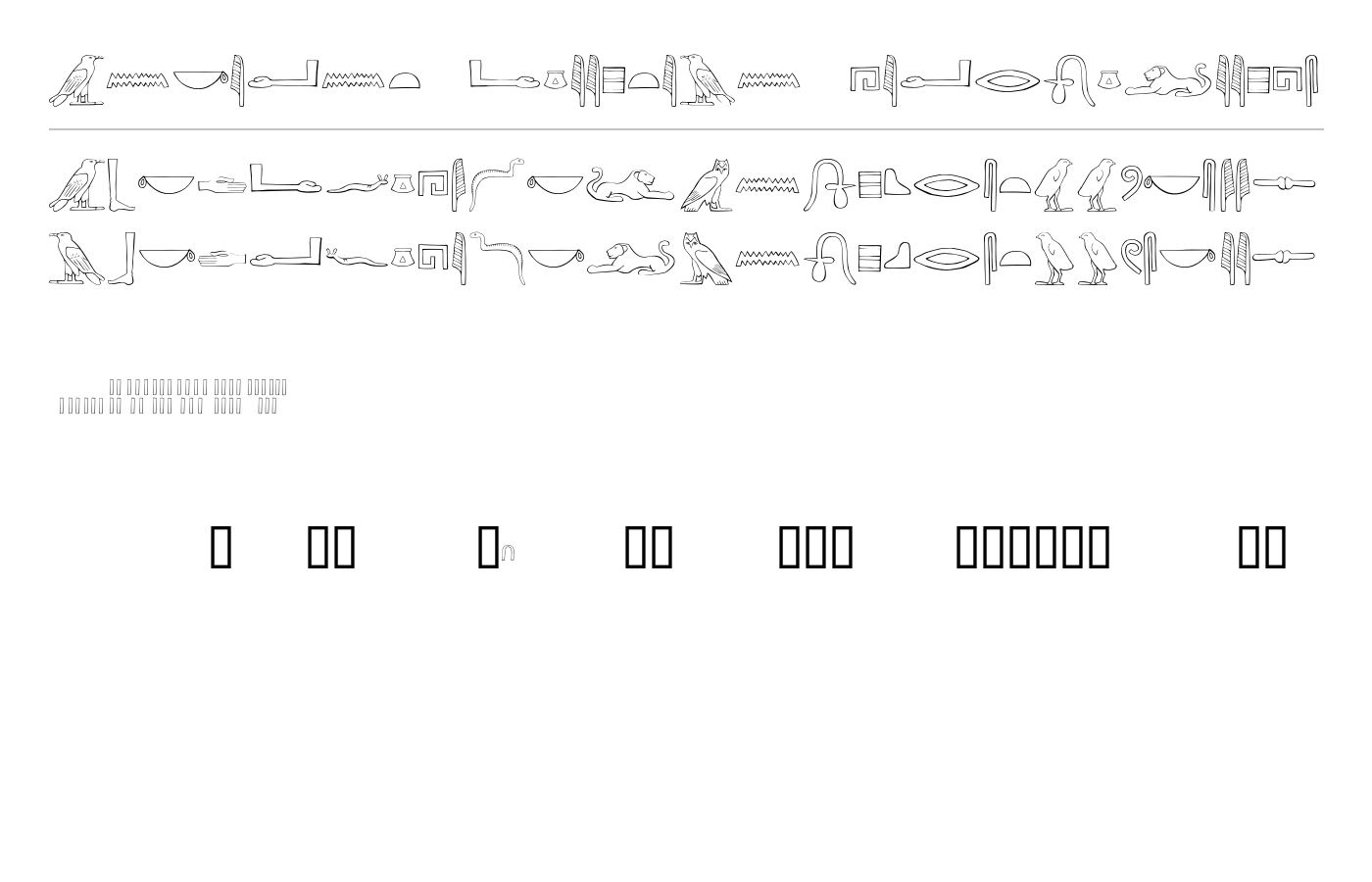
Ancient Egyptian Hieroglyphs Font is a decorative symbol font that faithfully replicates the look of traditional Egyptian hieroglyphic writing with detailed line art of iconic animals, objects, and symbols. Its thin, precise strokes and clear forms give it a historic and mysterious feel, making it perfect for projects seeking an authentic ancient or cultural vibe. This font is ideal for educational materials, themed graphics, museum exhibits, and decorative uses where ancient Egyptian motifs are desired.
Ancient Egyptian Hieroglyphs Font
About Ancient Egyptian Hieroglyphs Font
| Font family | Ancient Egyptian Hieroglyphs Font |
| Designer | Lene Martin Arensdorff Kristiansen |